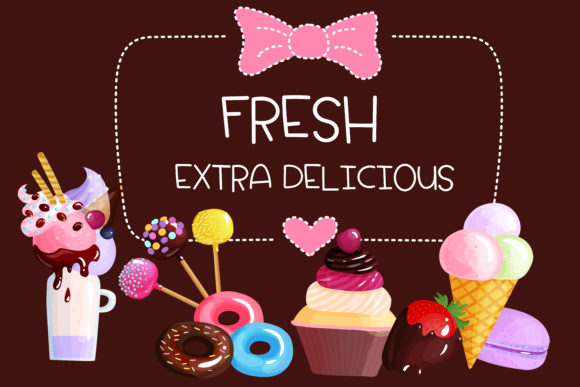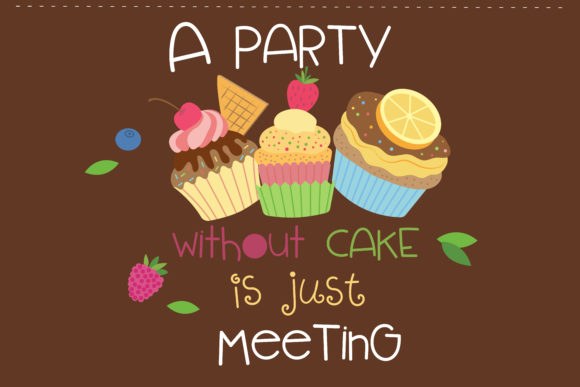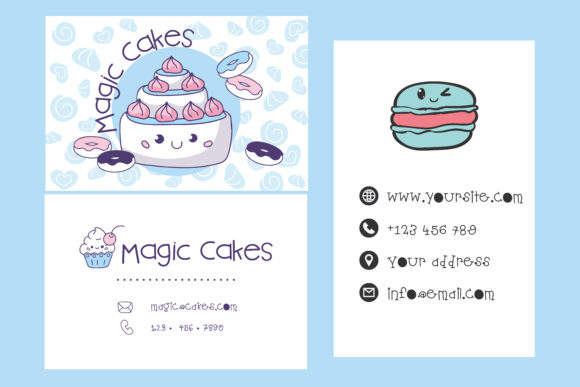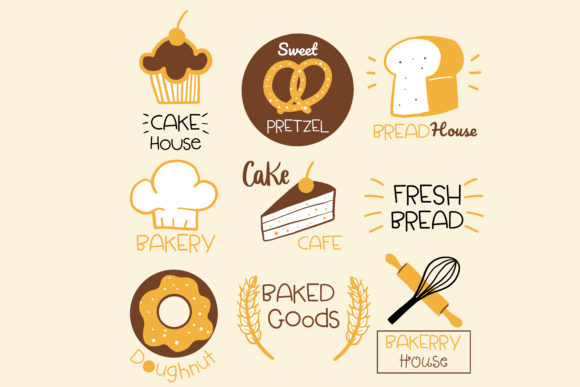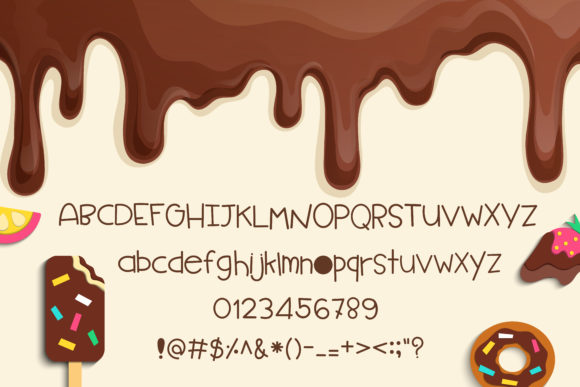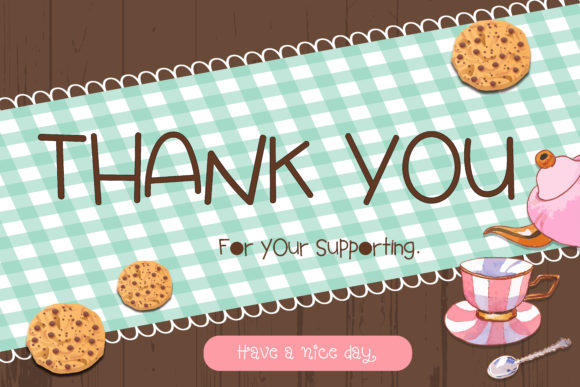
As a designer, have you ever found yourself stuck in a rut, struggling to convey the perfect tone for your latest project? Maybe it’s a playful logo for a bakery, a cheerful poster for a children’s event, or a trendy t-shirt design for a food truck. Whatever it is, you know that the right font can make all the difference.
Enter the Homemade Bakery Font, a delightful handwritten font that’s sure to add a touch of warmth and personality to your designs. This charming font is perfect for logos, posters, t-shirt designs, and much more, and its playful design is sure to put a smile on your clients’ faces.
Key Features of Homemade Bakery Font
- Font Family: A warm and inviting script font designed to evoke the feeling of a homemade bakery.
- Character Set: Includes 300+ glyphs, including Latin, Cyrillic, and Greek alphabets, as well as punctuation and special characters.
- Unique Characteristics: Features a hand-drawn, organic feel with subtle imperfections and texture, giving it a truly homemade look.
Designer Review: Homemade Bakery Font
As a designer, I was excited to review the Homemade Bakery Font, hoping to discover a charming and inviting typeface perfect for bakeries and other food-related businesses. Here’s my honest take:
- Unique Character: The Homemade Bakery Font has a distinct, handwritten feel that sets it apart from more generic fonts.
- Playful Touches: The font’s imperfections, like the varying line widths and unpredictable letter spacing, give it a homemade quality that’s perfect for bakeries and cafes.
- Good Legibility: Despite its handwritten nature, the font remains relatively easy to read, especially at larger sizes.
- Limited Font Sizes: The font’s quirky nature makes it challenging to use at very small sizes, where the imperfections can become distracting.
- Not Ideal for Body Text: Due to its uniqueness, the font may not be the best choice for large blocks of body text, where readability is crucial.
The Homemade Bakery Font is a delightful, one-of-a-kind typeface perfect for branding and promotional materials. While it may have its limitations, its charm and character make it a great choice for bakeries, cafes, and other food-related businesses looking to add a personal touch to their visual identity.
For the best results, use the Homemade Bakery Font for titles, headings, and other emphasis text. It’s perfect for bakery logos, menus, and packaging designs. You can also use it for invitations, greeting cards, and other paper crafts.
Remember to adjust the font size and style to fit your design and ensure that the text is readable. Experiment with different combinations of fonts to create a unique and eye-catching design.